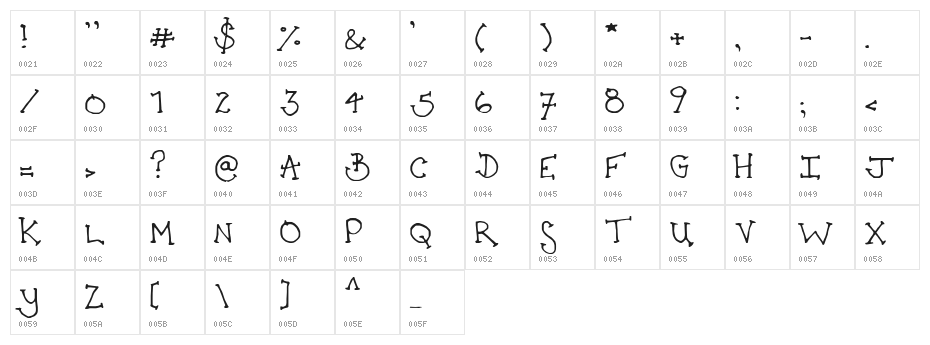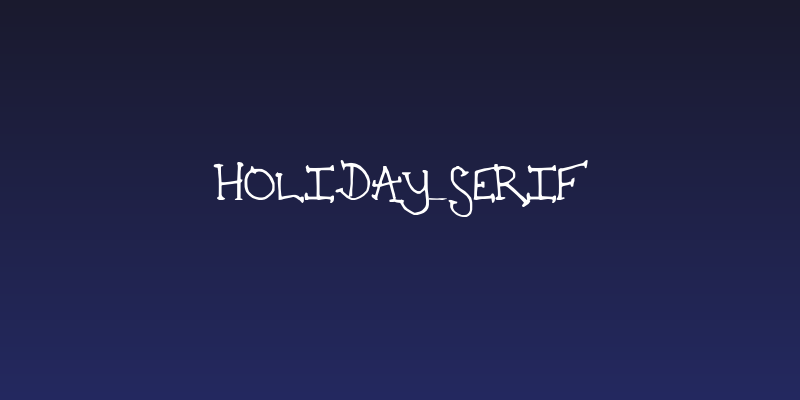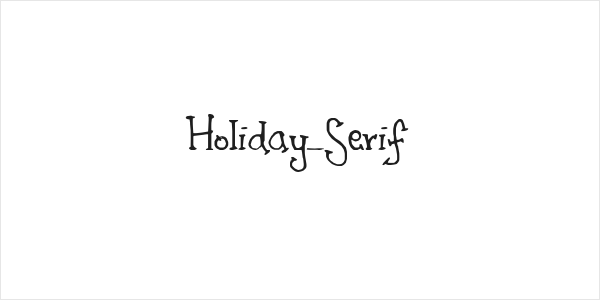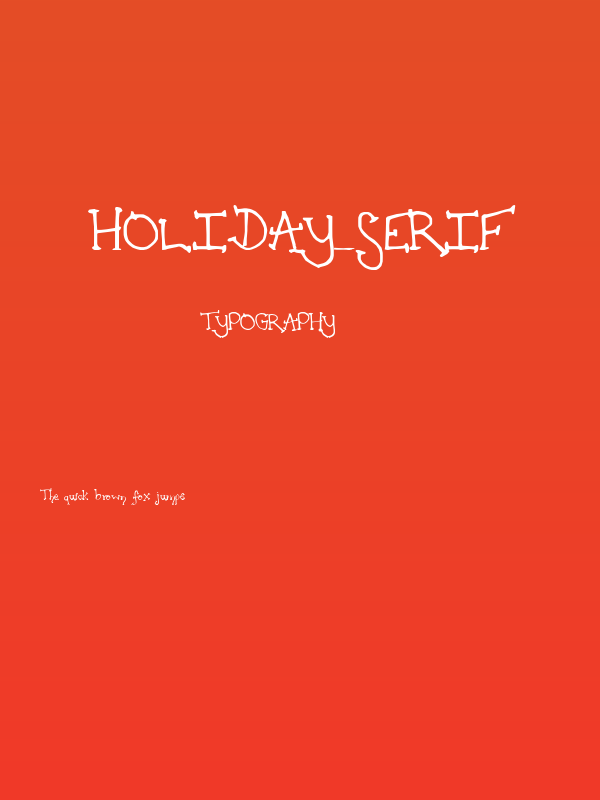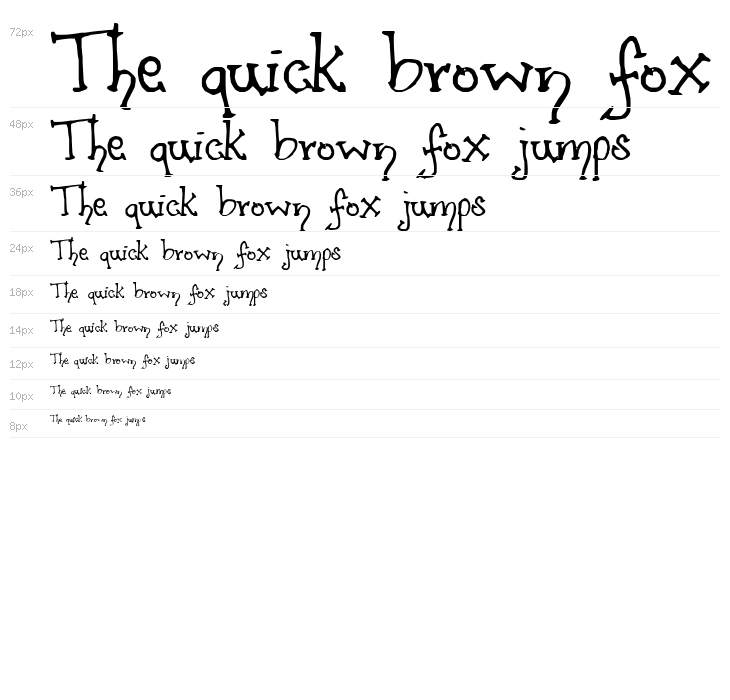
Holiday_Serif Font
Holiday_Serif Description
This font exudes a playful and whimsical charm, characterized by its irregular, hand-drawn appearance. The letters have a unique, quirky style with uneven lines and varying stroke thickness, giving it a lively and dynamic feel. The uppercase and lowercase letters maintain a consistent style, with some letters featuring exaggerated curves and loops. The numbers and special characters follow the same playful design, making the font suitable for creative and informal projects. Its distinctive style makes it stand out, adding a touch of fun and creativity to any design.
| Proposed Projects | Ideal for children's books, greeting cards, playful branding, and creative posters. |